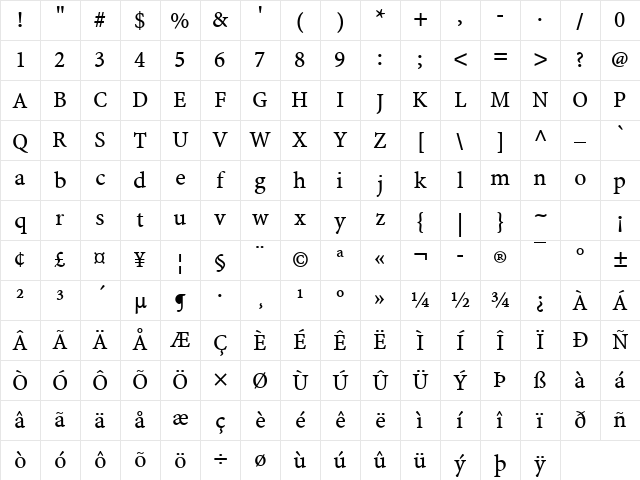
Minion Web Regular
Foundry: Adobe Systems, Incorporated
Design Context for Minion Web
Minion Web is a composed and adaptable typeface that performs quietly and consistently across a wide range of design contexts.
Who designed the Minion Web Regular font?
This font was published by Adobe Systems, Incorporated. Check the technical specs section for copyright and designer details.